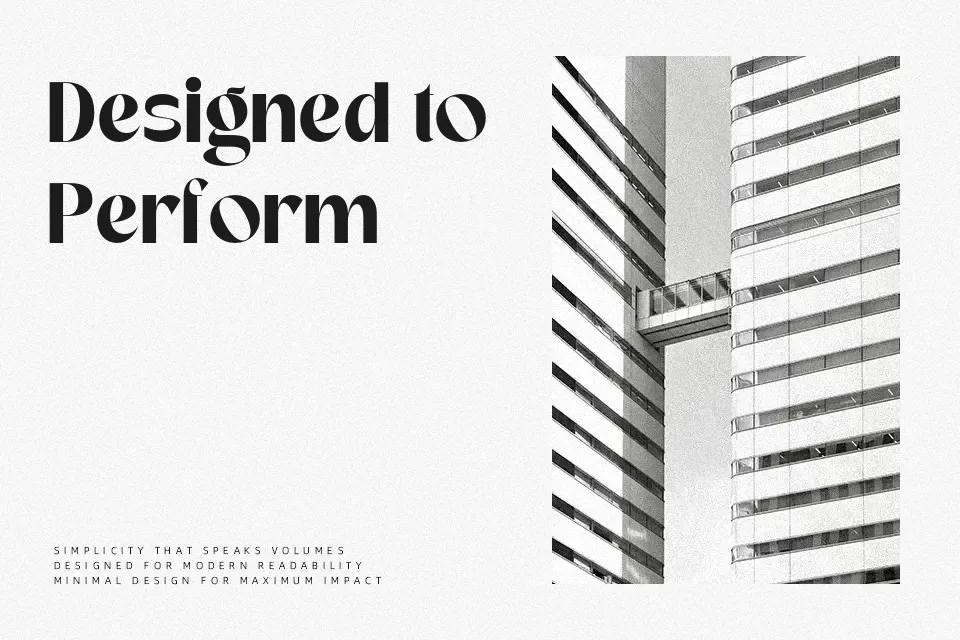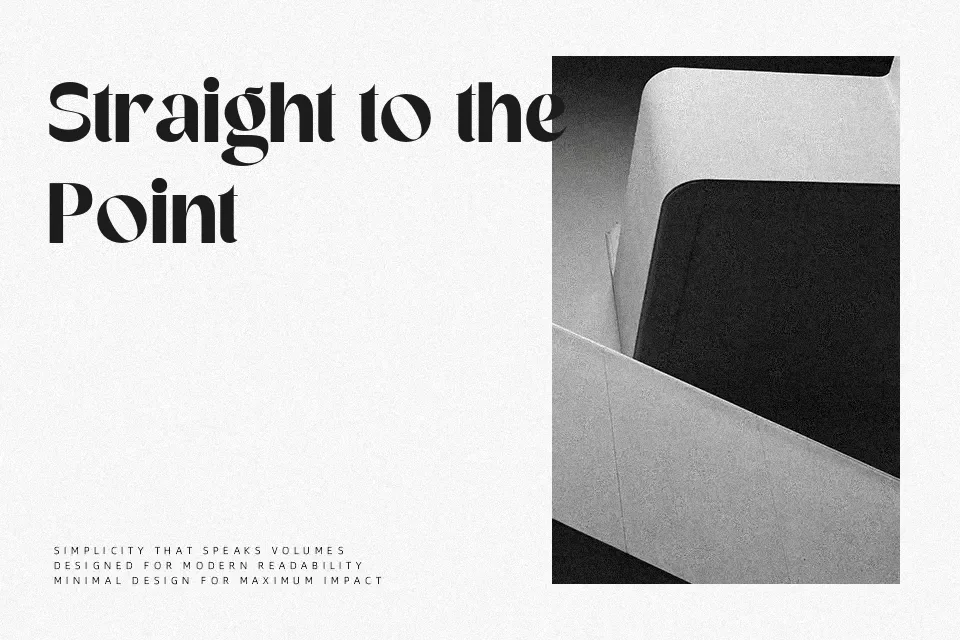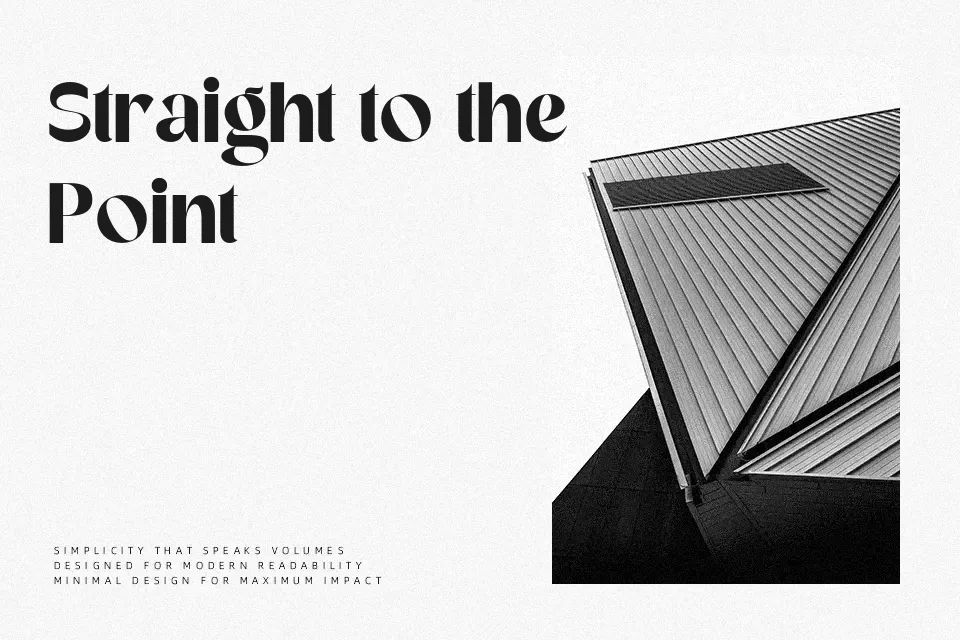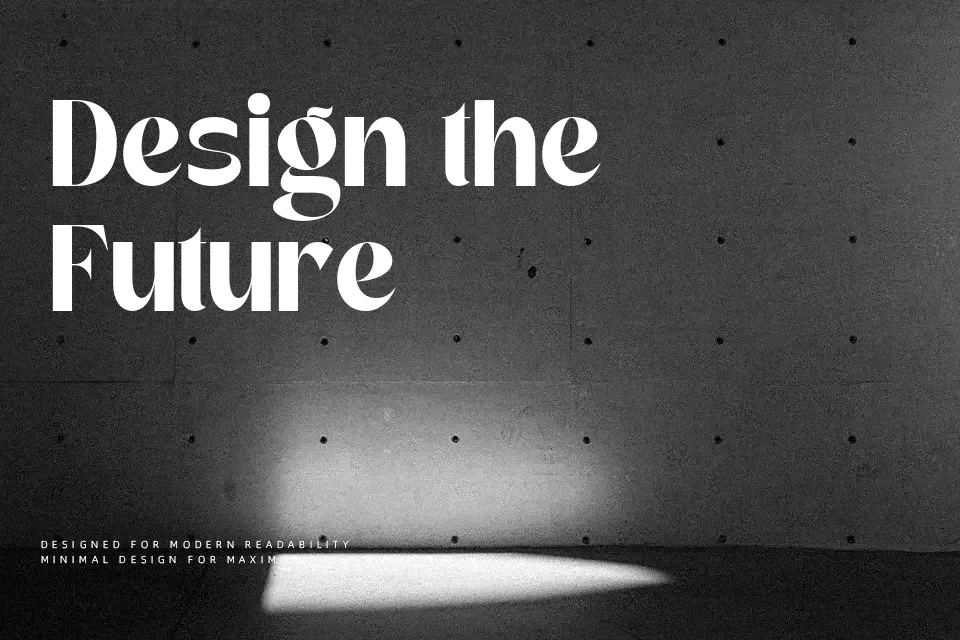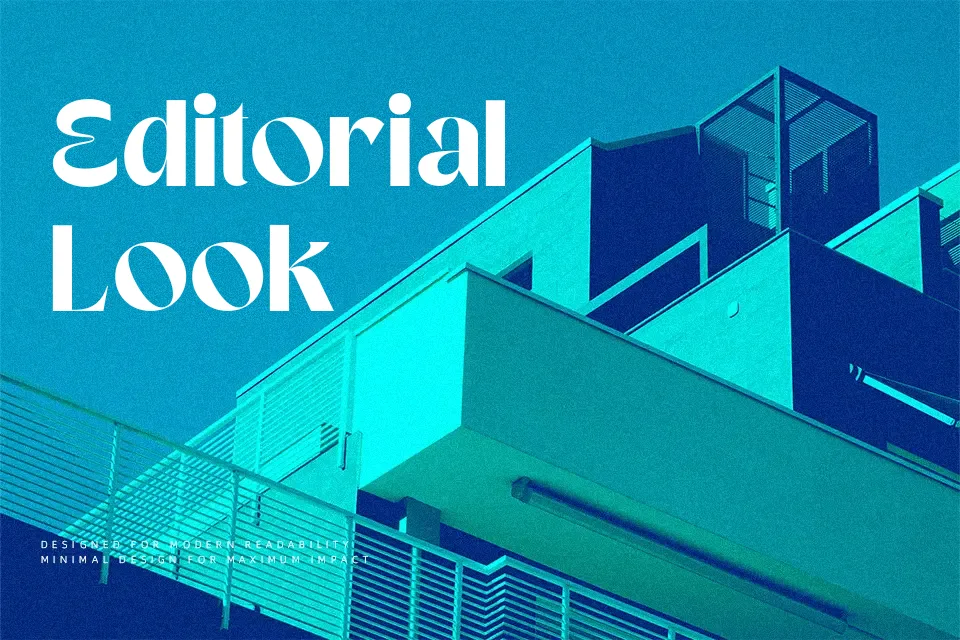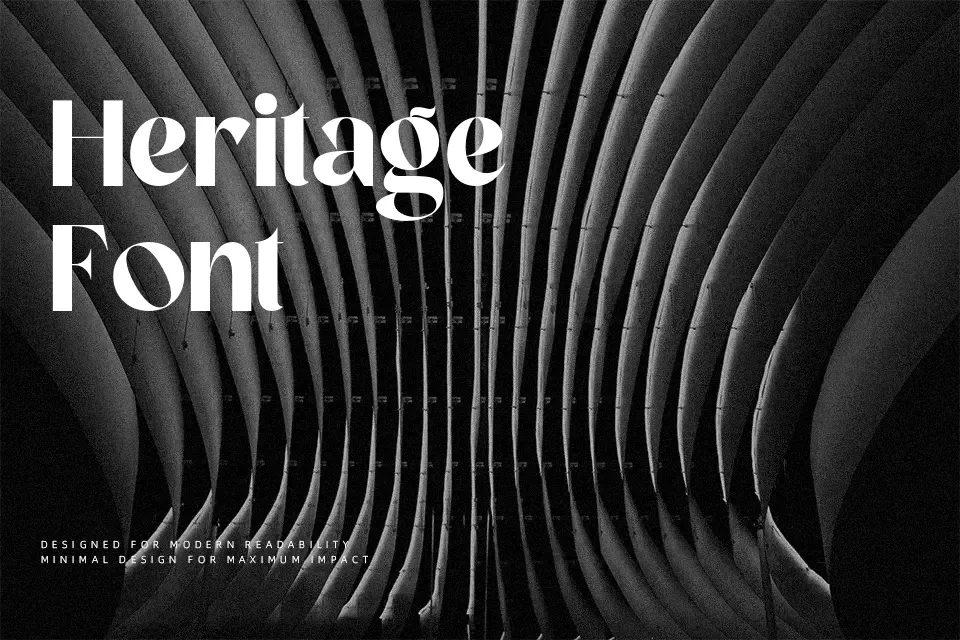
Reverie Font
A striking fashion editorial or high-end branding project benefits greatly from the elegant structure of Reverie Font. This modern display sans serif features clean, carefully proportioned letterforms with subtle stroke contrast, giving it a sophisticated and contemporary appearance. The typeface balances a strong visual presence with refined details, allowing the characters to stand out beautifully in large-scale applications. Its well-spaced uppercase and lowercase glyphs maintain excellent clarity when used for prominent titles and logos. However, the distinct decorative qualities and specific proportions of the design make it less effective for extended paragraphs. The letterforms perform best when given ample room to breathe, bringing a luxurious atmosphere to any display-focused layout.
high-end fashion branding, editorial magazine headlines, luxury product packaging, modern website hero sections
dense paragraph text, spreadsheet data, small interface labels, technical manuals
Perfect for branding, editorial, and headline, with a clean and display style.